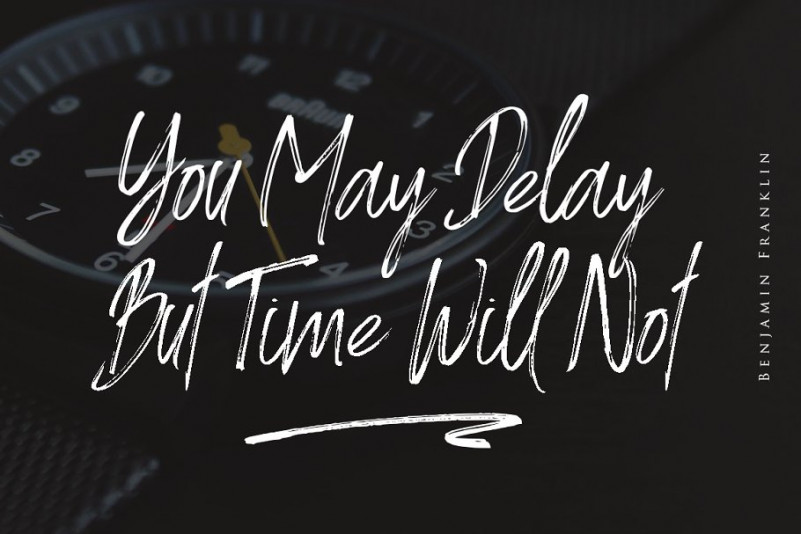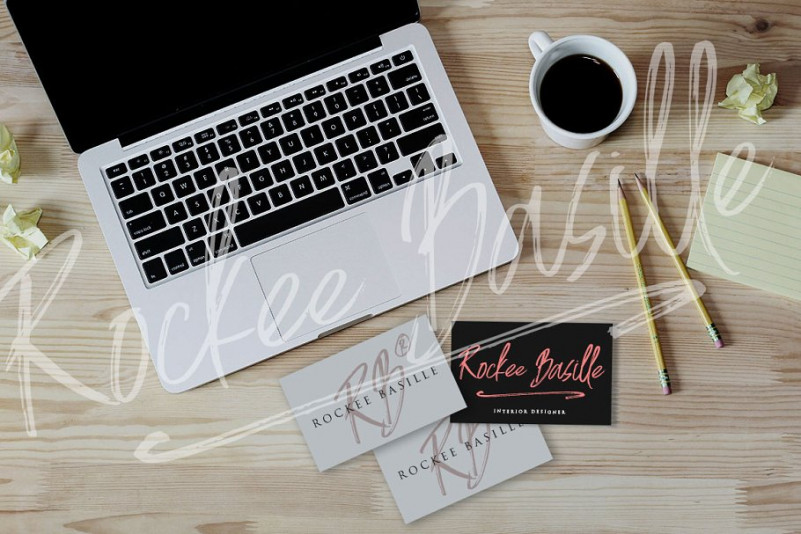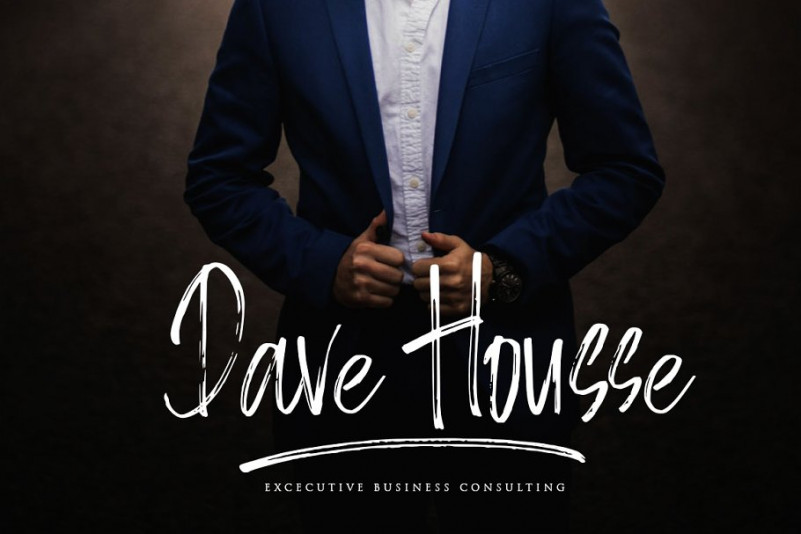
World Pressure Brush Font
This free font package is a modern font brush. This is a supercharged, street-wise brush font bursting with energy. It is guaranteed to deliver an unapologetically loud & fast-paced message. Introducing World Pressure Font. World Pressure A rustic, dapper handwritten font with a personal charm. With quick dry strokes and a signature style, World Pressure is perfect for branding projects, homeware designs, product packaging – or simply as a stylish text overlay to any background image.